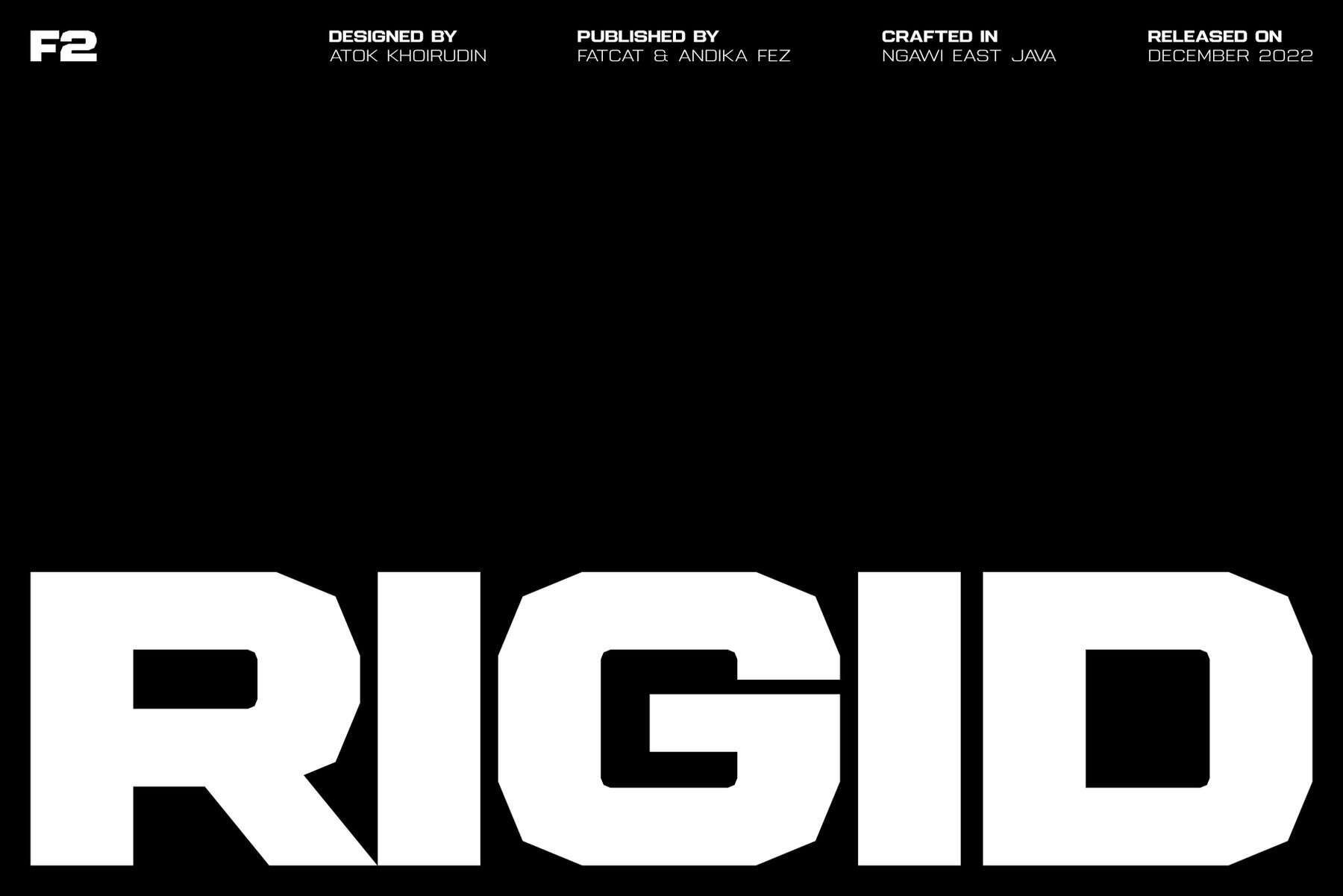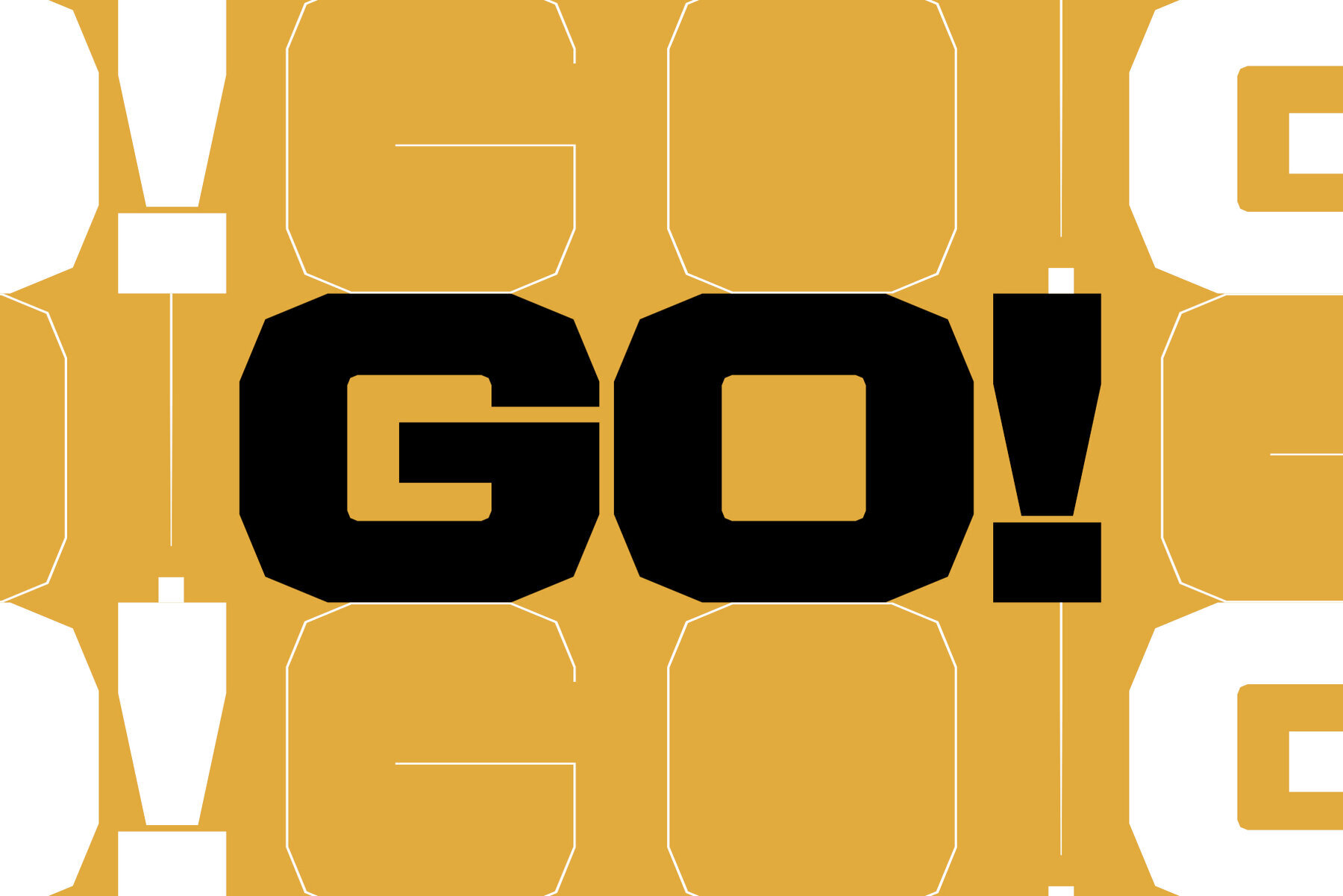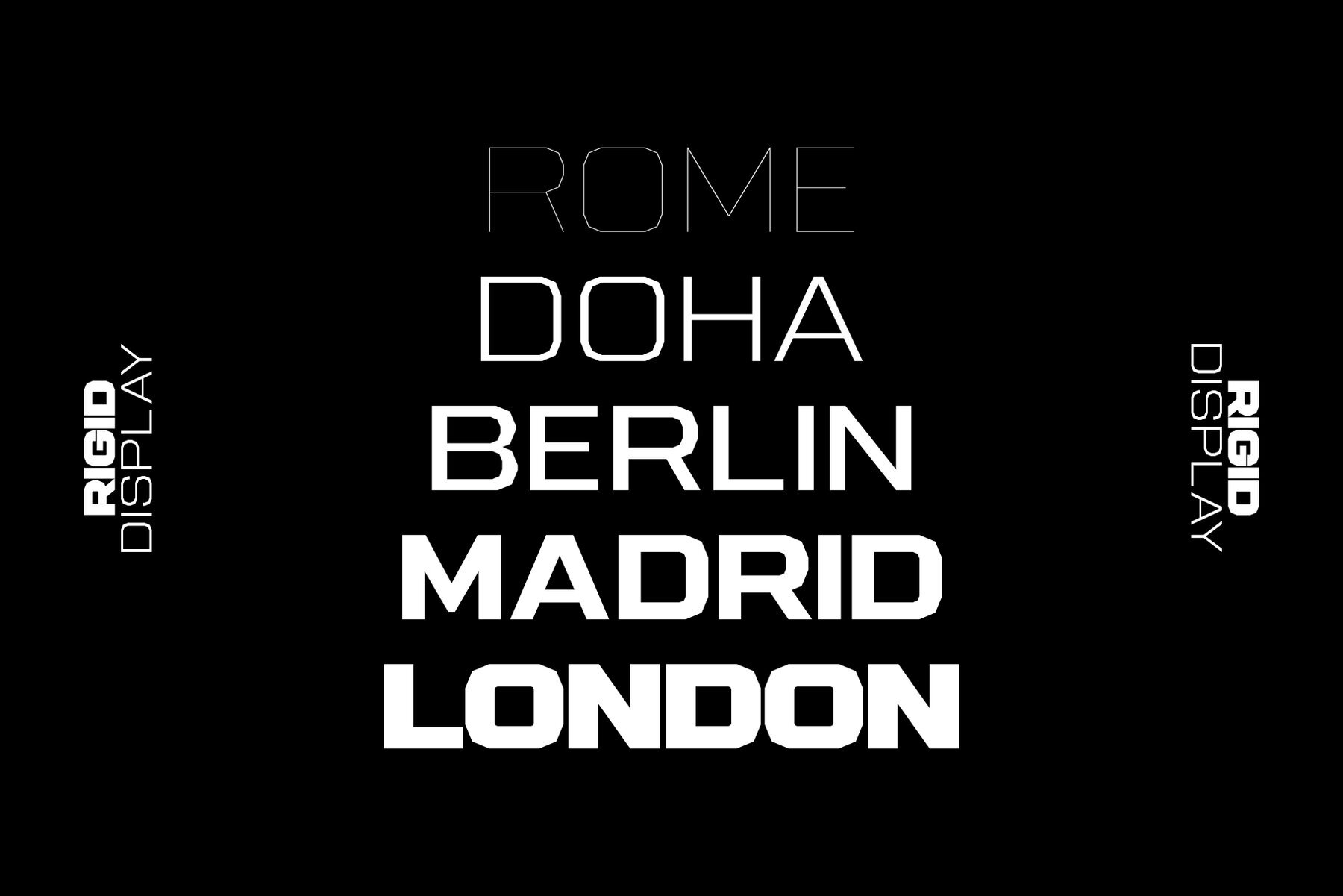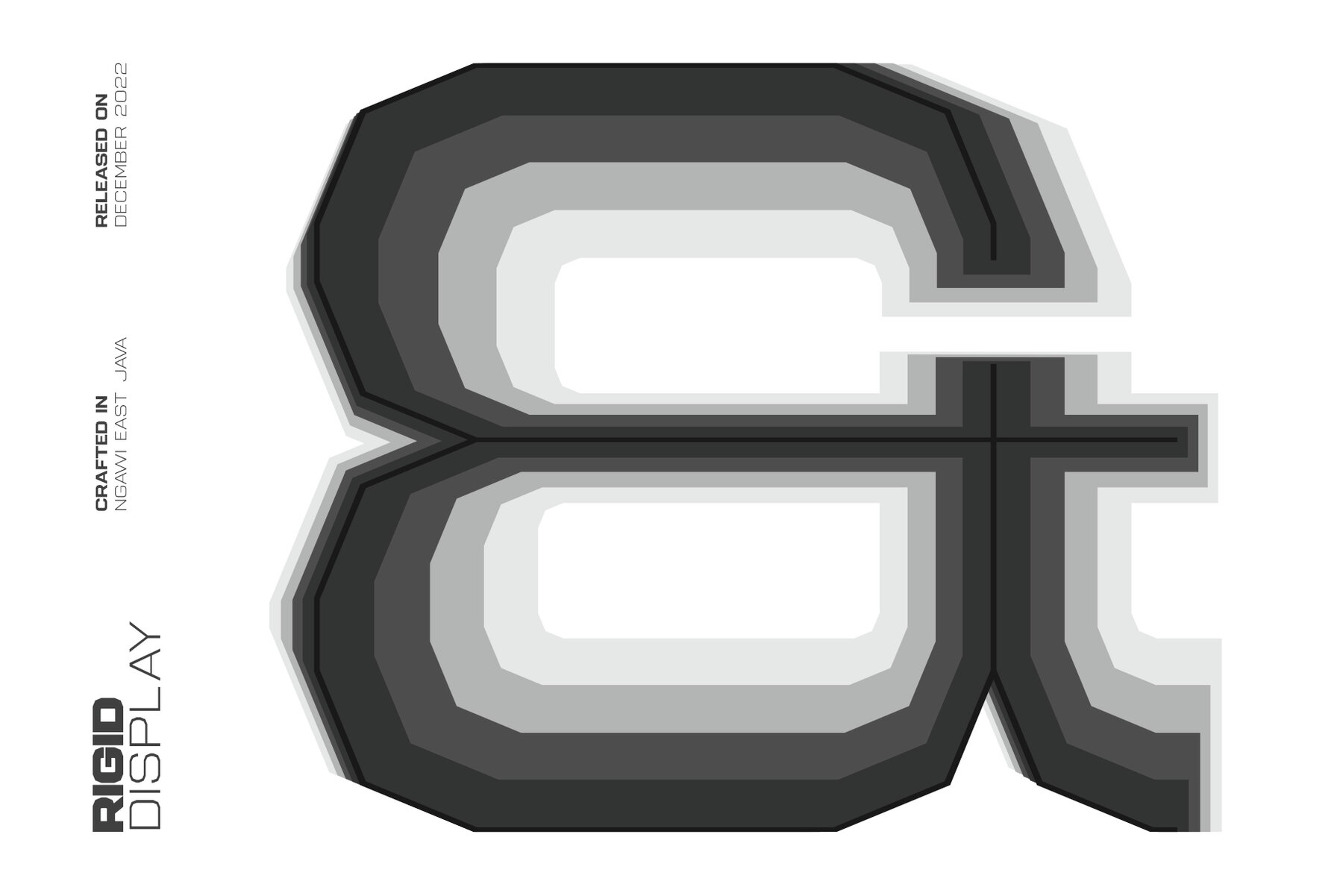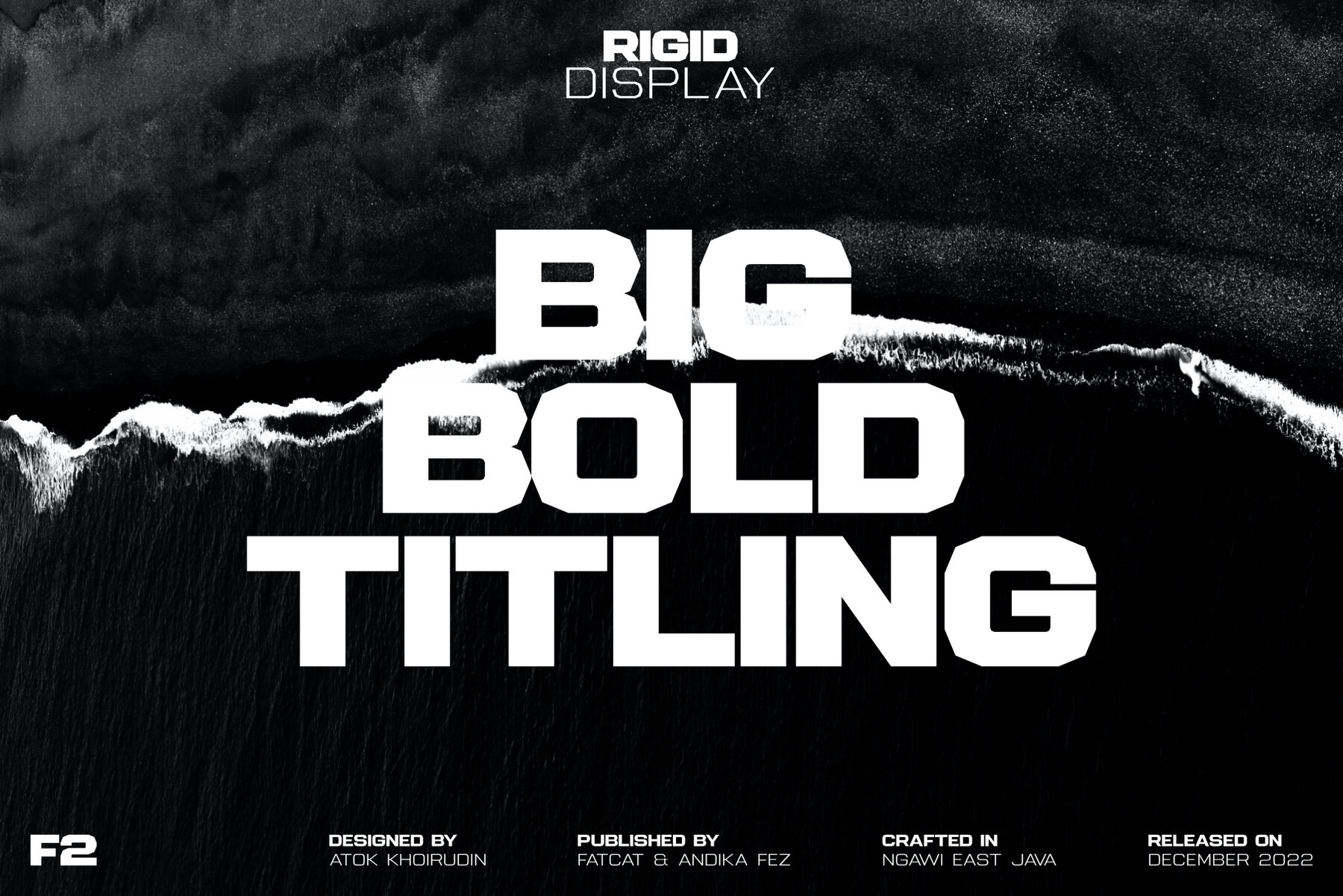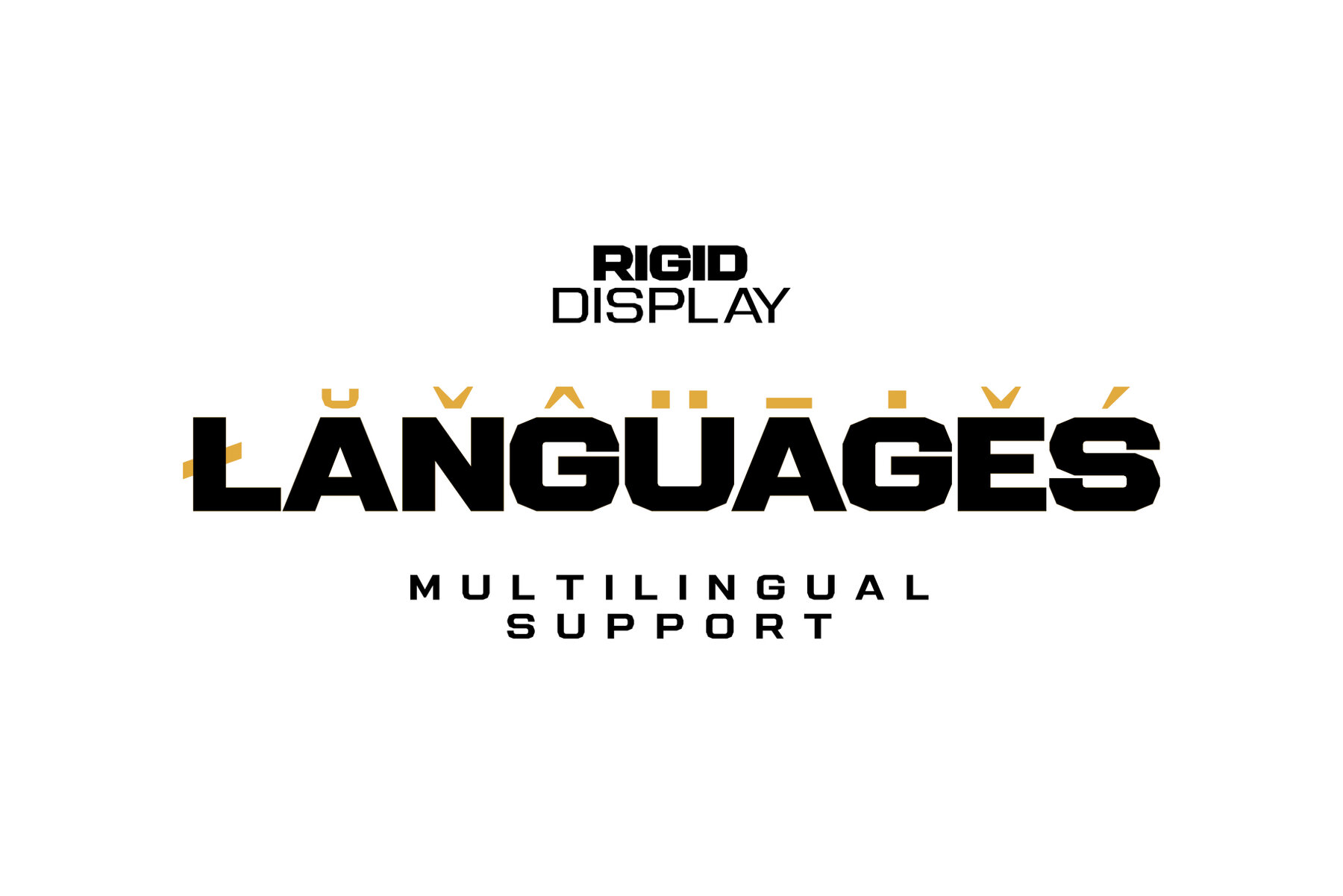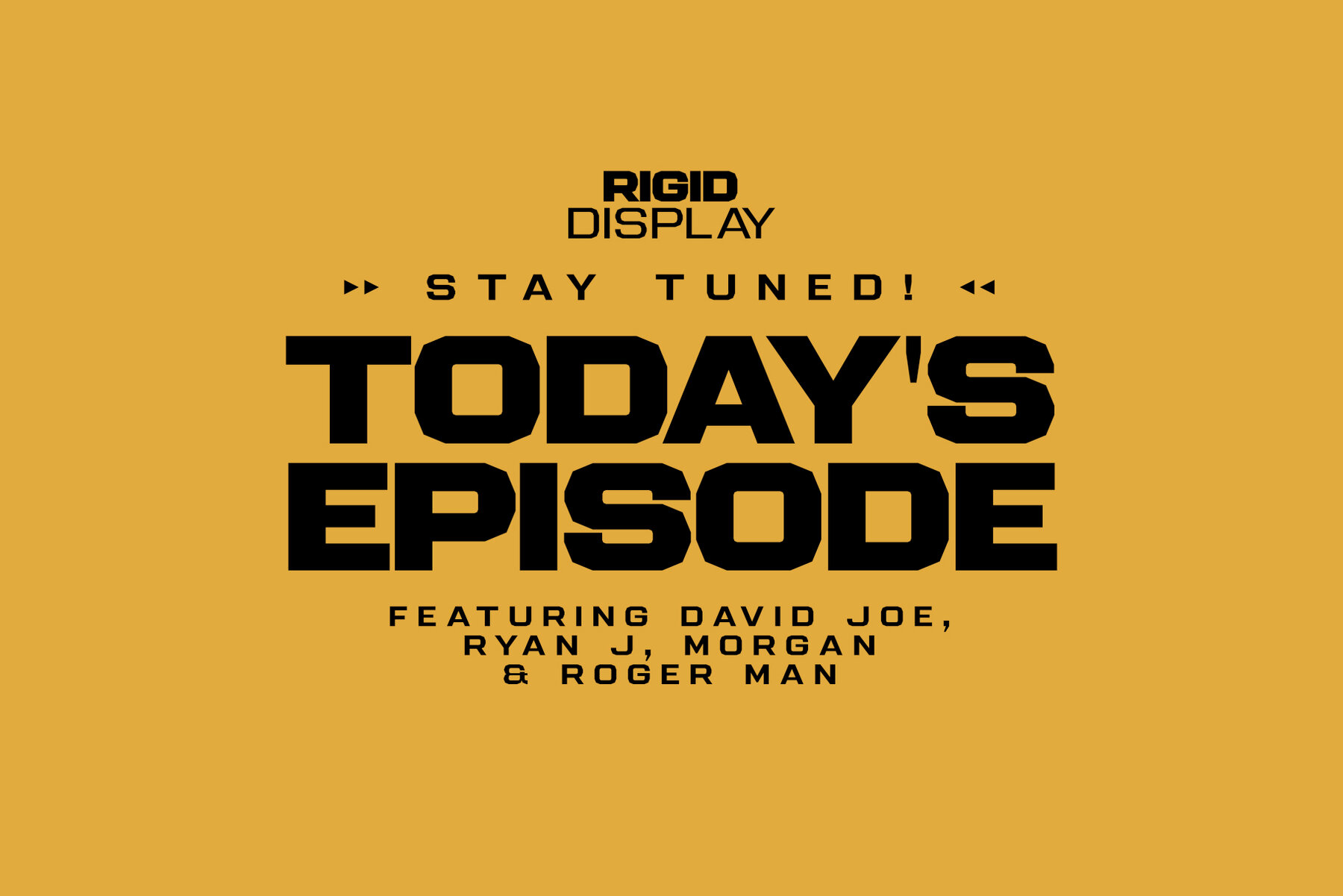
Rigid Display Font
Rigid Display is a sans serif font designed for display needs such as titles, logos, etc. with a different touch. Rigid Display provides 5 weights for its users to have freedom in handling. This fresh font is an alternative that will refresh your font library and also the viewers so feel free to choose it as the main pawn for your project